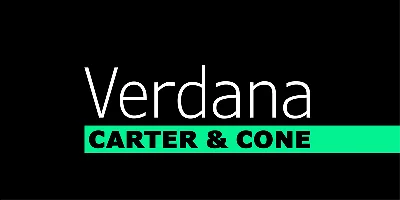
Verdana Pro Font
Verdana Pro Font is an exceptional choice for projects that prioritize supreme readability and clarity, especially in digital environments. It's perfectly suited for web content, user interfaces, e-books, reports, presentations, and any application where long-form text needs to be effortlessly legible on screens of all sizes. Imagine it bringing crisp clarity to a news website, making an online document a pleasure to read, or ensuring your app's text is perfectly understandable even at small sizes. Its carefully designed characters with generous counters and wide proportions ensure your message is conveyed with maximum readability and minimum eye strain.
What makes Verdana Pro Font so exciting is its unparalleled optimization for on-screen display. Developed specifically for digital readability, it excels where many other fonts struggle, maintaining its clarity even at low resolutions and small point sizes. This font isn't just about aesthetics; it’s about functionality, accessibility, and ensuring that your content is absorbed with ease by every user. It provides a reliable, robust foundation for any digital publication, making it a go-to choice for web developers and content creators alike.
The Verdana Pro Font family offers a comprehensive and expanded range of weights and styles to provide extensive design flexibility beyond the original Verdana. You can expect to find a broad spectrum from Light, Regular, and Semibold, all the way to a robust Bold or Black weight, often with corresponding italic versions. This extensive range allows for sophisticated typographic hierarchies and ensures that whether you need subtle annotations or prominent headlines, the Verdana Pro Font provides the foundational versatility to achieve clear, readable, and professional designs across all your digital platforms.